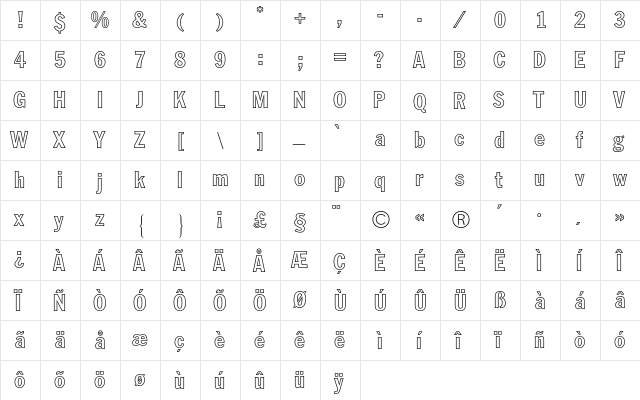
FranklinATFCondensedBQ Regular
Design Context for FranklinATFCondensedBQ Typeface
FranklinATFCondensedBQ is a composed and adaptable typeface that performs quietly and consistently across a wide range of design contexts. The condensed width makes it efficient for tight spaces without sacrificing legibility.